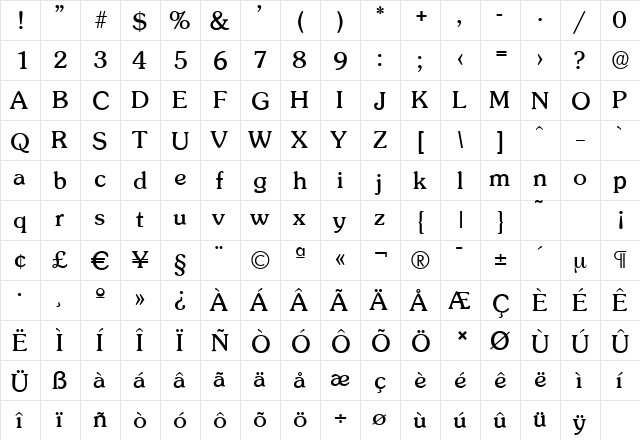
SunsetSerial Regular
Design Context for SunsetSerial Typeface
SunsetSerial is a composed and adaptable typeface that performs quietly and consistently across a wide range of design contexts.